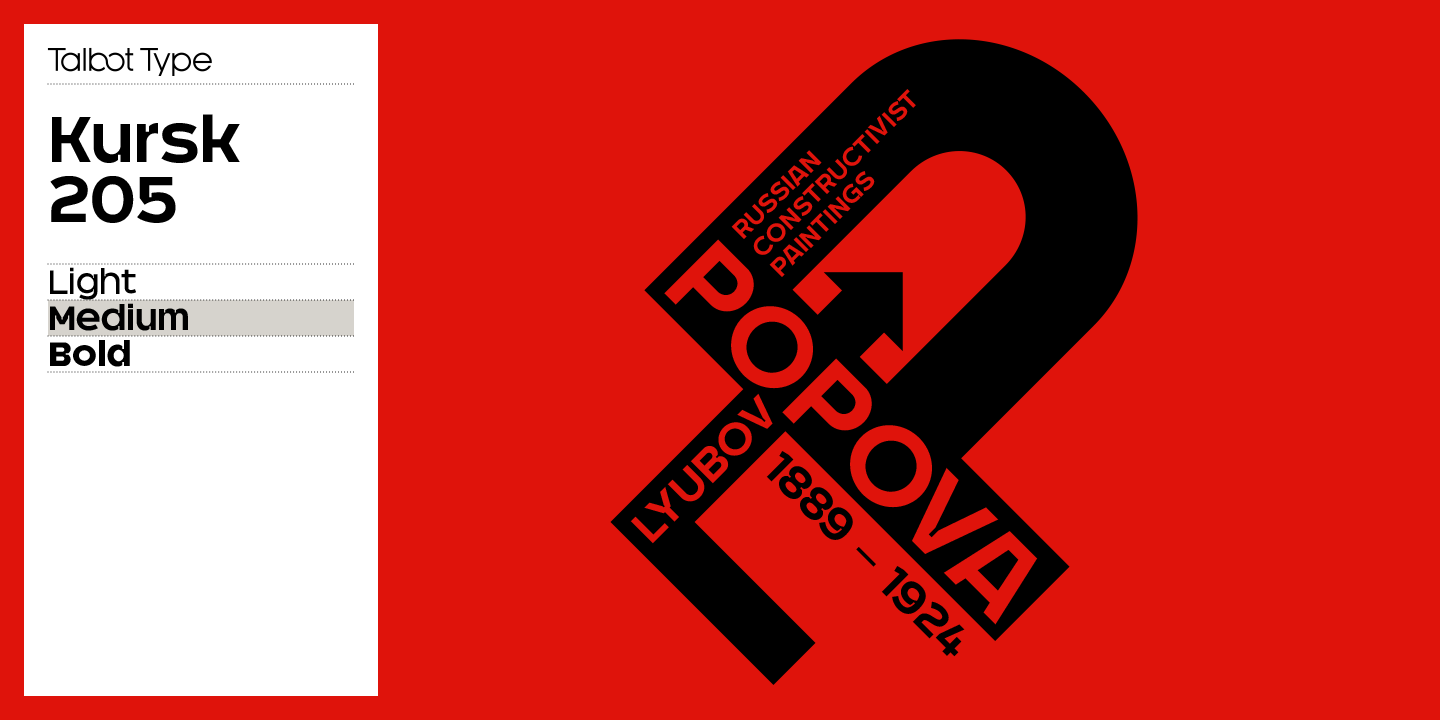
Kursk 205 Font is perfect for industrial design branding, heavy machinery communications, military-themed projects, robust engineering materials, powerful automotive advertising, strength-focused fitness campaigns, tactical equipment packaging, and commanding corporate identity systems.
What makes Kursk 205 Font exciting is its formidable strength and industrial power that embodies the relentless force and unwavering reliability of heavy-duty machinery and military precision. This commanding typeface combines tactical sophistication with industrial durability, creating letters that march with authority and communicate uncompromising strength. The font's military-inspired character construction and industrial aesthetic make it an essential tool for brands seeking to communicate power, reliability, and tactical excellence.
Kursk 205 Font family includes Regular, Bold, Light, Heavy, Tactical, and Armored variations, plus military symbols and industrial elements. Each style maintains the font's powerful character while providing comprehensive flexibility for creating robust design systems and commanding brand communications that reflect industrial strength and tactical precision.
Industrial design specialists consistently choose Kursk 205 Font Free Download for projects requiring tactical sophistication and powerful visual impact. This remarkable typeface has gained recognition among defense contractors, heavy industry companies, and tactical equipment manufacturers worldwide. The font's ability to convey strength and tactical reliability makes it perfect for brands operating in military, industrial, and heavy equipment markets.
The design philosophy behind Kursk 205 Font emphasizes tactical strength and industrial reliability. Its letterforms feature robust construction with carefully engineered details that reflect the power and precision found in military operations and heavy industrial applications. The font's distinctive elements include tactical angles and industrial character variations that create immediate trust with audiences seeking reliable strength and tactical solutions.
Creative agencies specializing in industrial and tactical branding frequently select Kursk 205 Font for clients requiring powerful communication and commanding brand expression. The font's versatility allows seamless integration into comprehensive industrial branding systems, from military campaigns to heavy equipment promotions, ensuring consistent brand personality across all tactical and industrial touchpoints.
The technical execution of Kursk 205 Font demonstrates advanced understanding of industrial typography requirements and tactical design standards. Optimized for both technical documentation and industrial marketing applications, the font includes extensive OpenType features that support robust design workflows. The comprehensive character set and tactical symbol library make it suitable for international industrial campaigns requiring authentic military typography with global tactical appeal.